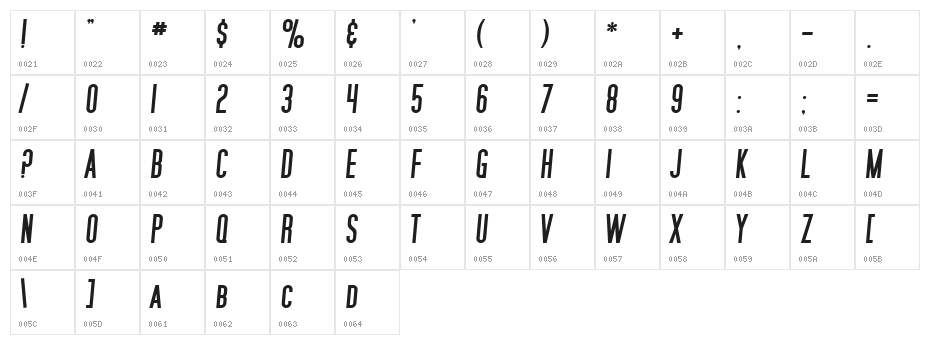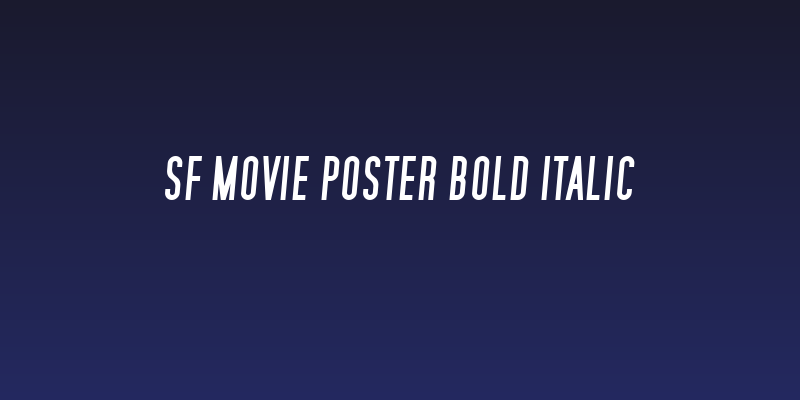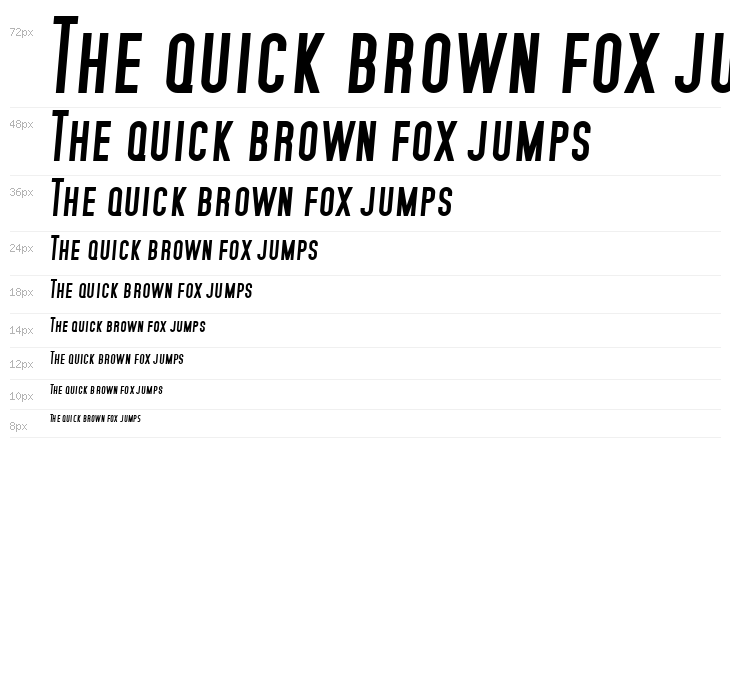
SF Movie Poster Bold Italic Font
SF Movie Poster Bold Italic Description
This font features a bold and italicized style with a strong presence, ideal for capturing attention. The characters are tall and slightly condensed, giving them a sleek and modern appearance. The strokes are thick, providing a high contrast that enhances readability from a distance. The italic slant adds a dynamic and energetic feel, making it suitable for impactful designs. The uppercase and lowercase letters maintain a consistent style, while the numerals and special characters complement the overall aesthetic. This font is perfect for projects that require a bold statement.
| Proposed Projects | Ideal for movie posters, headlines, advertising, and branding projects that require a strong visual impact. |